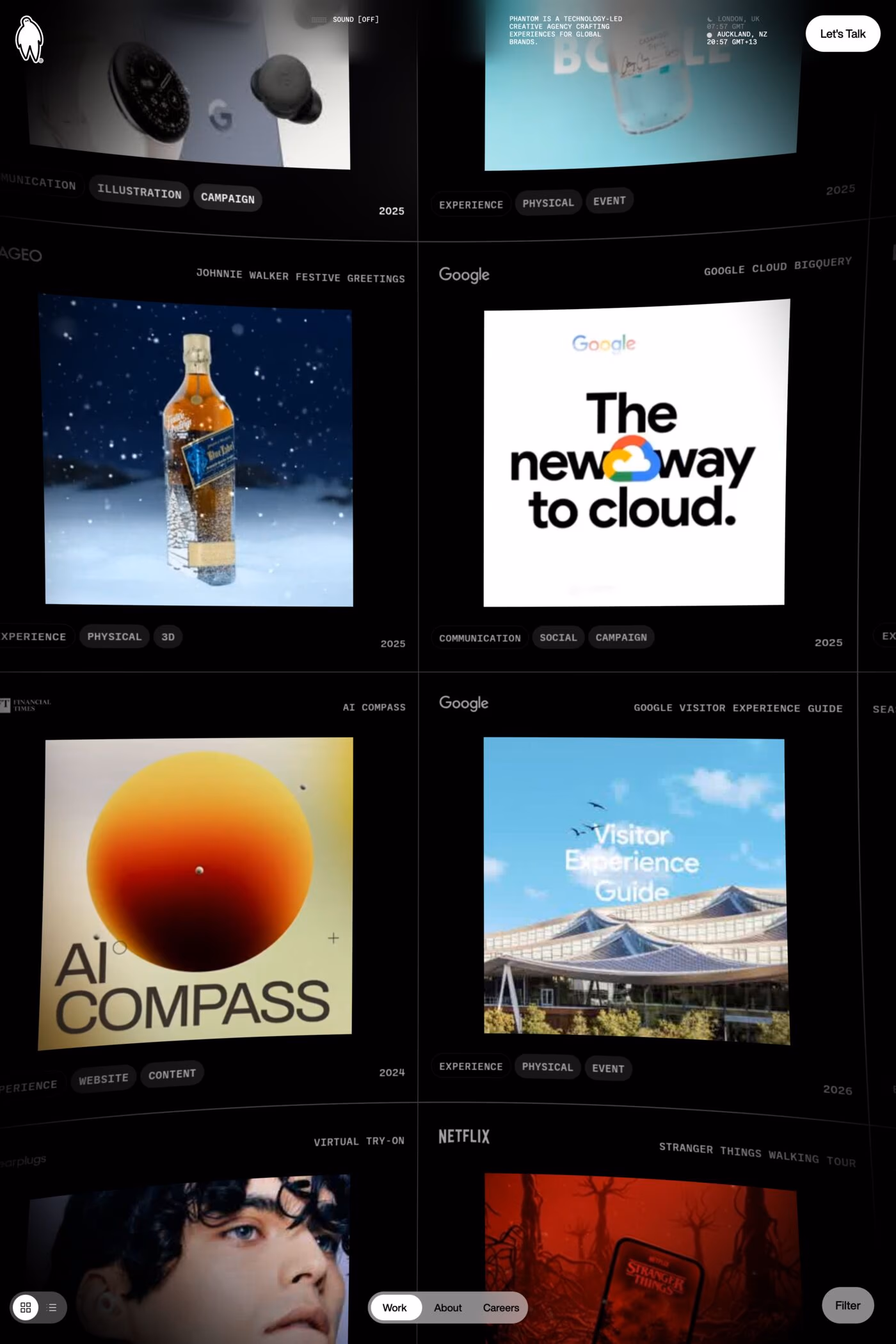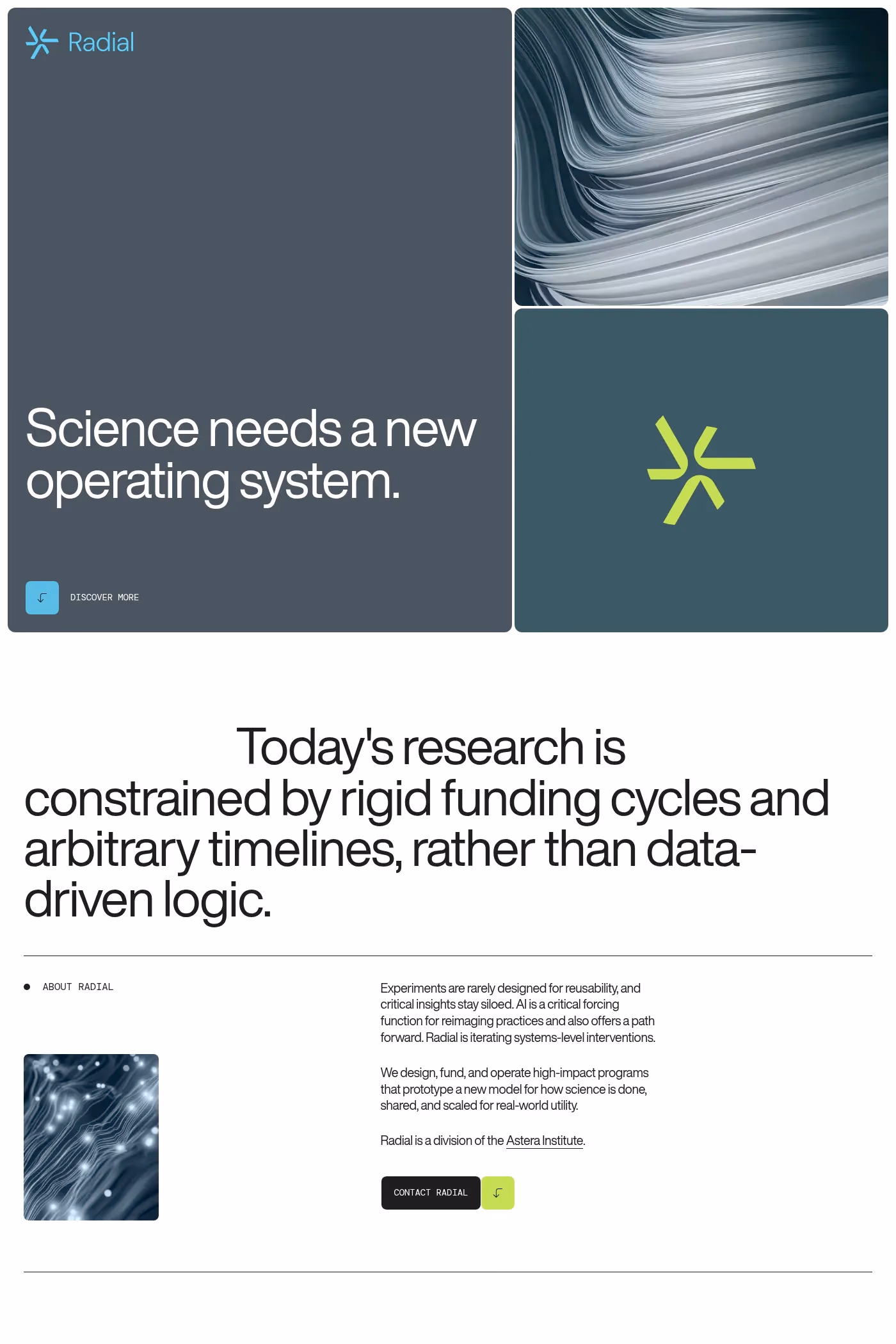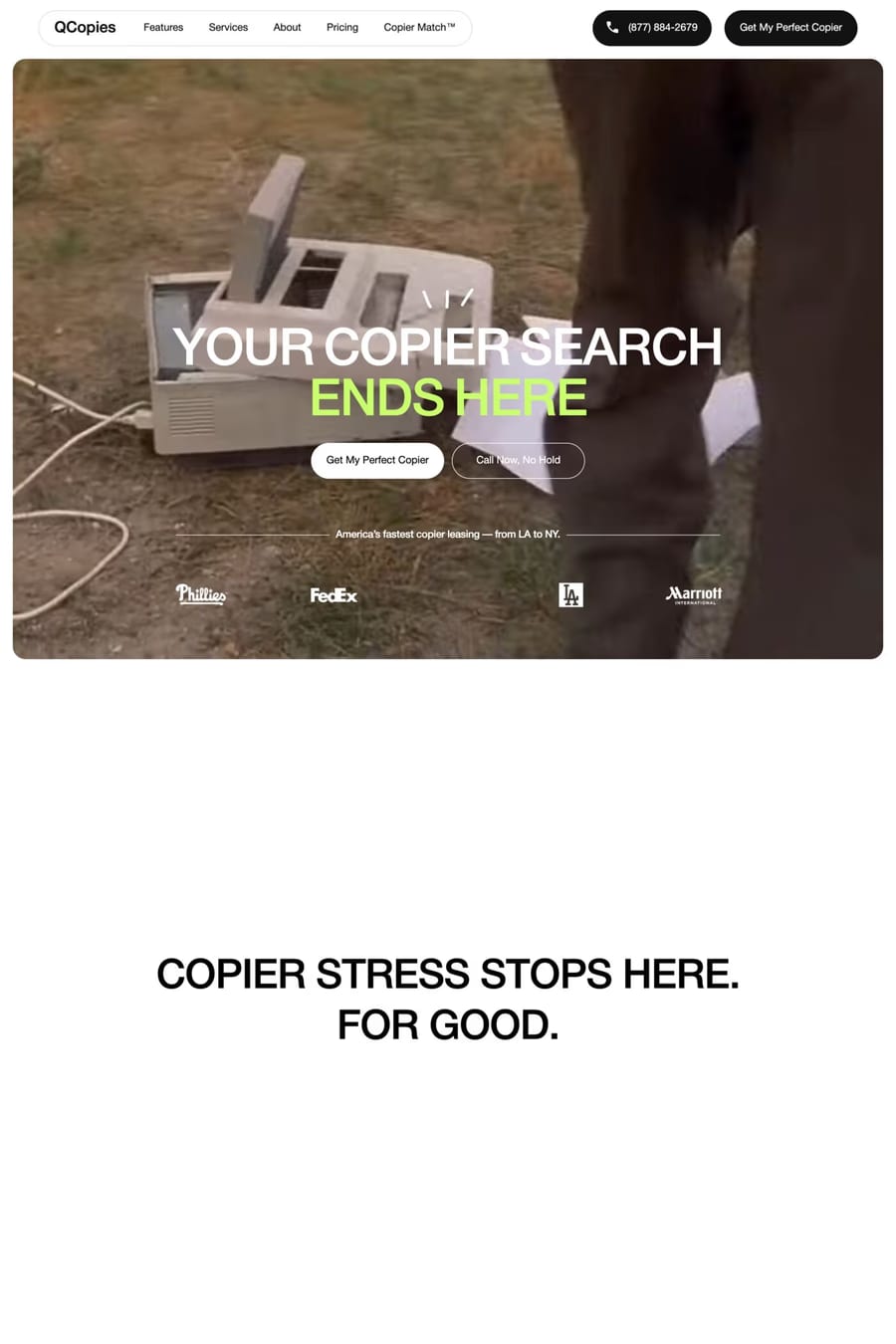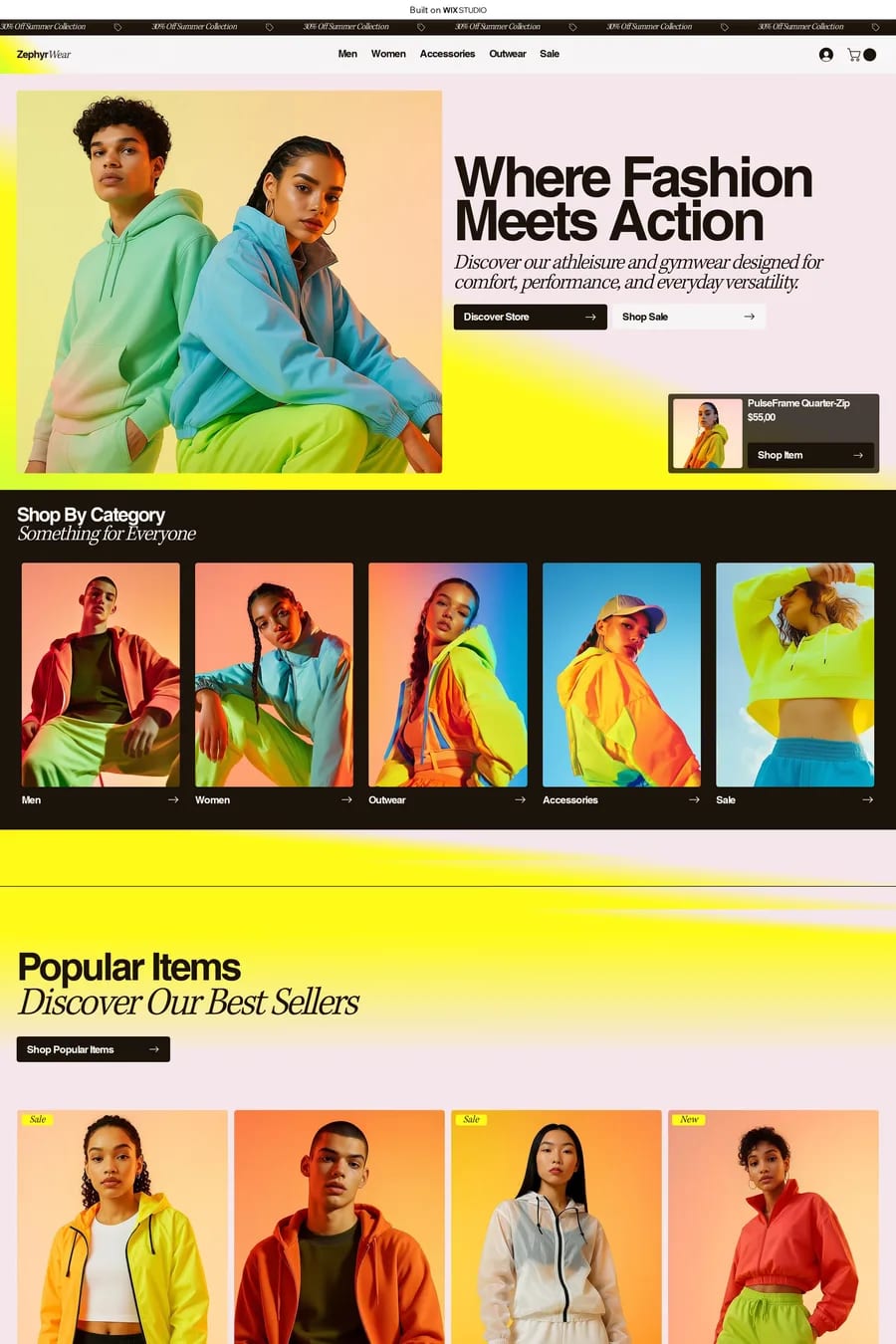
Helvetica® Now is a sans-serif typeface from Monotype.
Helvetica® Now is a new chapter in the story of perhaps the best-known typeface of all time. Available in three optical sizes—Micro, Text, and Display—every character in Helvetica Now has been redrawn and refit; with a variety of useful alternates added. It has everything we love about Helvetica and everything we need for typography today. This is not a revival. This is not a restoration. This is a statement. This is Helvetica Now: for everyone, everywhere, for everything.